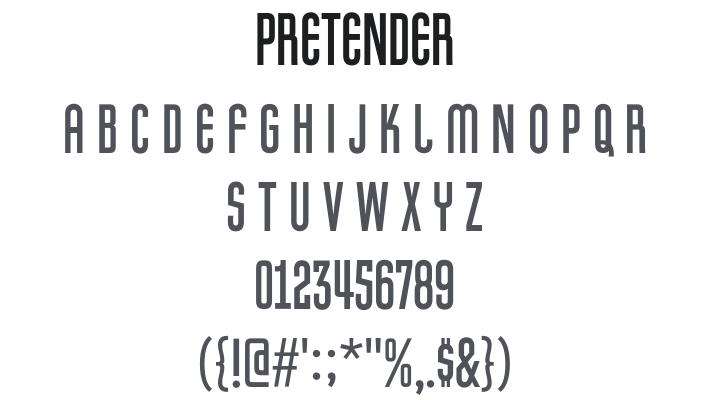
Pretender Font
About Pretender
Pretender is a slender, condensed Art Deco headline typeface inspired by the sheet music cover of Mexicali Rose — a 1920s waltz ballad. Its tall, graceful letterforms carry suave, sophisticated panache with clean geometric structure and elegant proportions that feel both vintage and timeless. Perfect for jazz-era inspired designs, fashion editorial, cocktail bar branding, wedding stationery, and any headline needing effortless 1920s glamour.